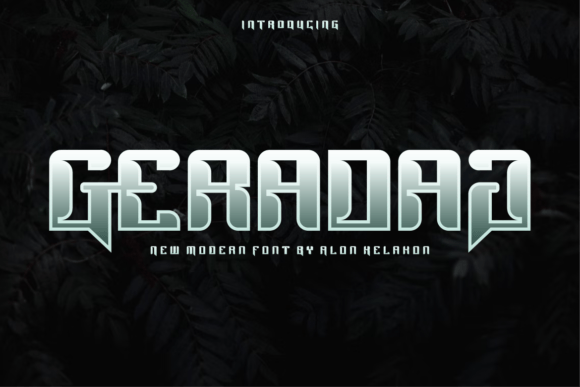
Step into the realm of gaming with Geradag Font, a definitive font family meticulously crafted to elevate your gaming experience. With its bold and captivating strokes, Geradag Font exudes a dynamic energy that will leave your audience mesmerized. Unleash your creativity and delve into a world of gaming like never before.
Dive into the depths of Geradag Font's versatile characters, designed with the utmost precision to offer limitless possibilities for customization. This font is your ultimate weapon in the battle against creative limitations. Its meticulously engineered curves and sharp angles work in harmony, creating a visual masterpiece that commands attention.
Harness the power of Geradag Font and watch your gaming world come alive. Its distinctive appearance will leave an indelible mark on your audience, captivating them with its captivating charm. Whether you're a seasoned gamer or just starting your journey, Geradag Font will elevate your projects to new heights of excellence.
As you wield Geradag Font, you'll discover a font that not only captivates but also communicates with clarity and precision. Its legibility and readability ensure that your messages are conveyed with crystal-clear impact. From in-game interfaces to captivating logos, Geradag Font will elevate your designs and leave a lasting impression.
But Geradag Font is more than just a gaming font; it's a gateway to endless creative possibilities. Its versatility extends beyond the realm of gaming, making it an ideal choice for a wide range of projects. Unleash your imagination and explore the countless opportunities that await you with Geradag Font.
Don't settle for ordinary fonts. Embrace the extraordinary with Geradag Font. Its unique blend of style and functionality will transform your projects into captivating experiences. Take the first step towards greatness and let Geradag Font lead you to victory.